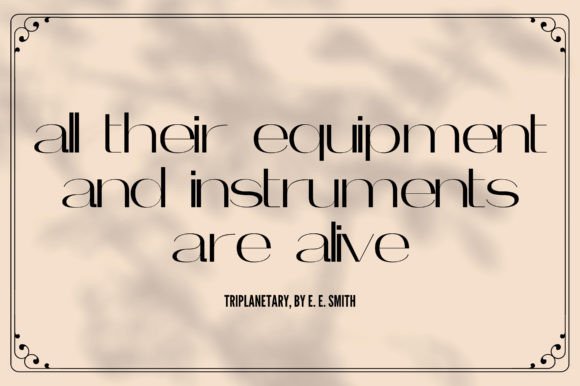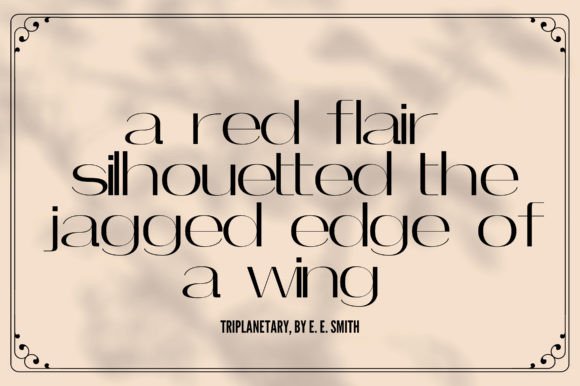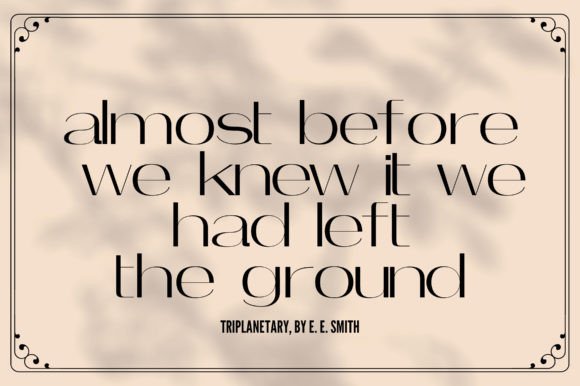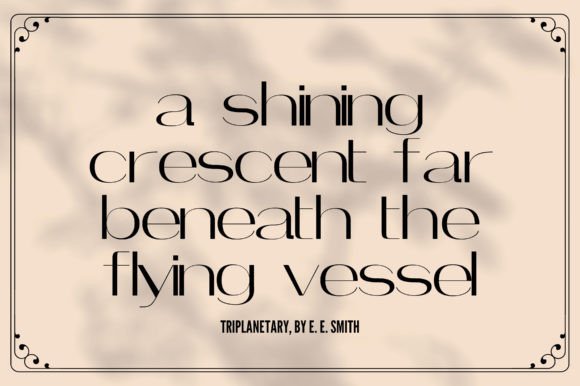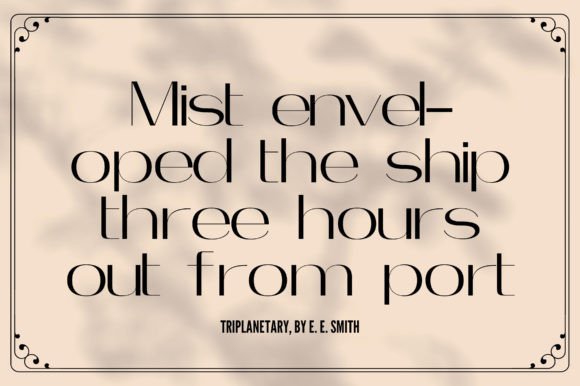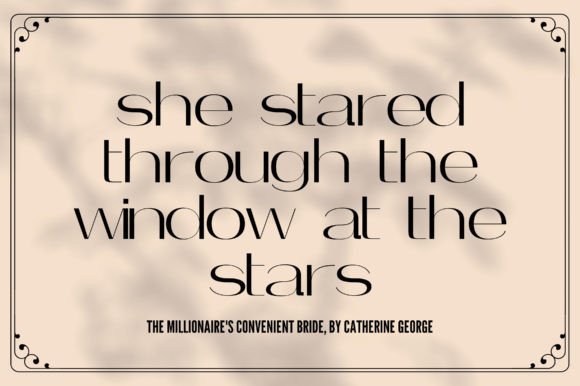
Introducing Blundit: The Ultimate Sans Serif Font for Modern Design Projects
In the world of design, typography plays a crucial role in conveying a message, expressing creativity, and building brand identity. With the numerous font options available, finding the perfect one that embodies simplicity, elegance, and professionalism can be a daunting task. However, we are excited to introduce Blundit, a sleek and minimalist sans serif font that is revolutionizing the way designers approach modern design projects.
The Characteristics of Blundit
Blundit is characterized by its fluid lines and clean curves, which create a sense of simplicity and elegance. The font’s minimalist design makes it a great choice for a wide range of applications, from branding and web design to print materials and more. Its sleek and modern aesthetic is perfect for designers who want to create a polished and professional look for their projects.
Key Features of Blundit
- Fluid Lines and Clean Curves: Blundit’s fluid lines and clean curves create a sense of continuity and flow, making it perfect for body text, headings, and titles.
- Minimalist Design: The font’s minimalist design ensures that your message is conveyed clearly and effectively, without any distractions.
- Sans Serif: Blundit’s sans serif design makes it highly legible on digital screens and in print, ensuring that your message is conveyed clearly in any medium.
- Highly Versatile: Blundit is a highly versatile font that can be used for a wide range of applications, from branding and web design to print materials and more.
- Easy to Read: Blundit’s clean and simple design makes it easy to read, even at small font sizes.
- Professional Look: The font’s sleek and modern aesthetic ensures that your projects look polished and professional.
- Customizable: Blundit can be easily customized to fit your brand’s unique style and personality.
Using Blundit in Different Design Projects
Blundit’s versatility makes it a great choice for a wide range of design projects. Here are some examples of how you can use Blundit:
- Branding: Use Blundit to create a professional and cohesive brand identity that reflects your company’s values and personality.
- Web Design: Blundit’s clean and simple design makes it perfect for web design, ensuring that your website looks modern and professional.
- Print Materials: Use Blundit for print materials such as brochures, flyers, and business cards to create a polished and professional look.
- Advertising: Blundit’s sleek and modern aesthetic makes it perfect for advertising materials such as billboards, posters, and social media ads.
In conclusion, Blundit is a game-changing sans serif font that is perfect for modern design projects. Its sleek and minimalist design makes it a great choice for branding, web design, print materials, and more. With its fluid lines, clean curves, and highly versatile design, Blundit is sure to become a favorite among designers and crafters. So why wait? Try Blundit today and take your design projects to new heights!